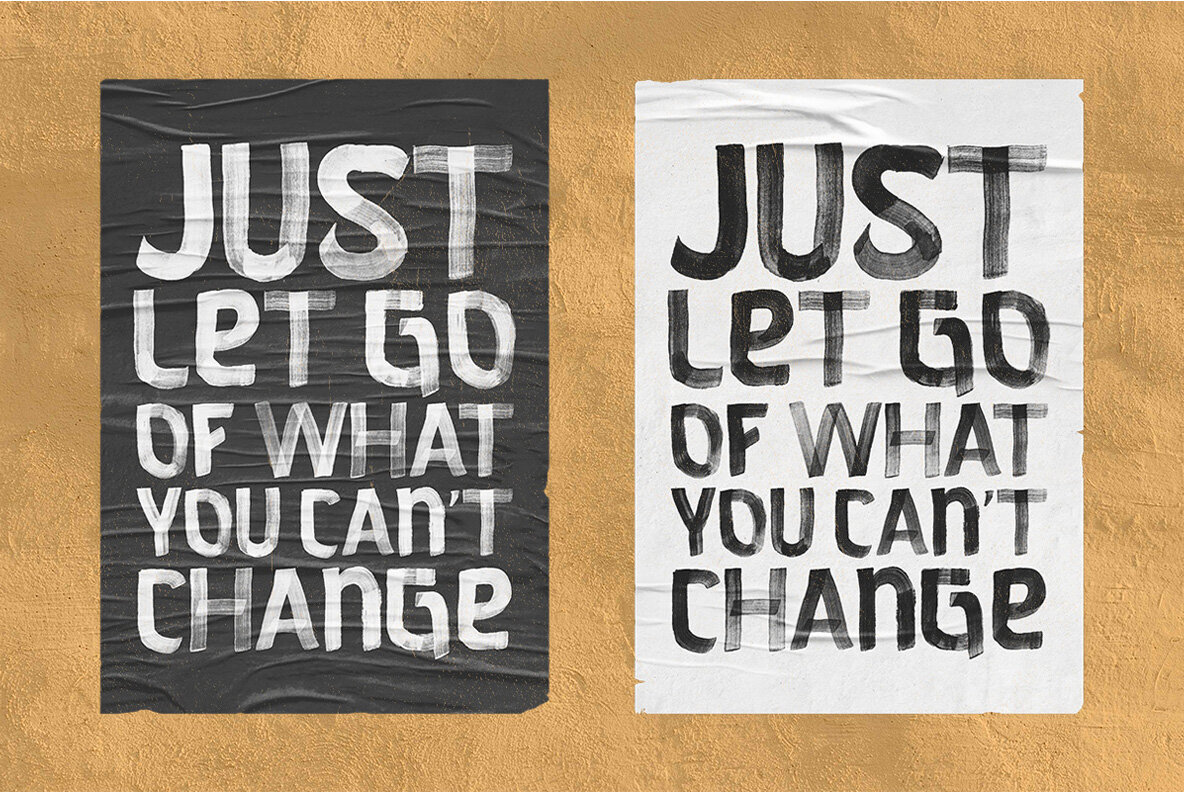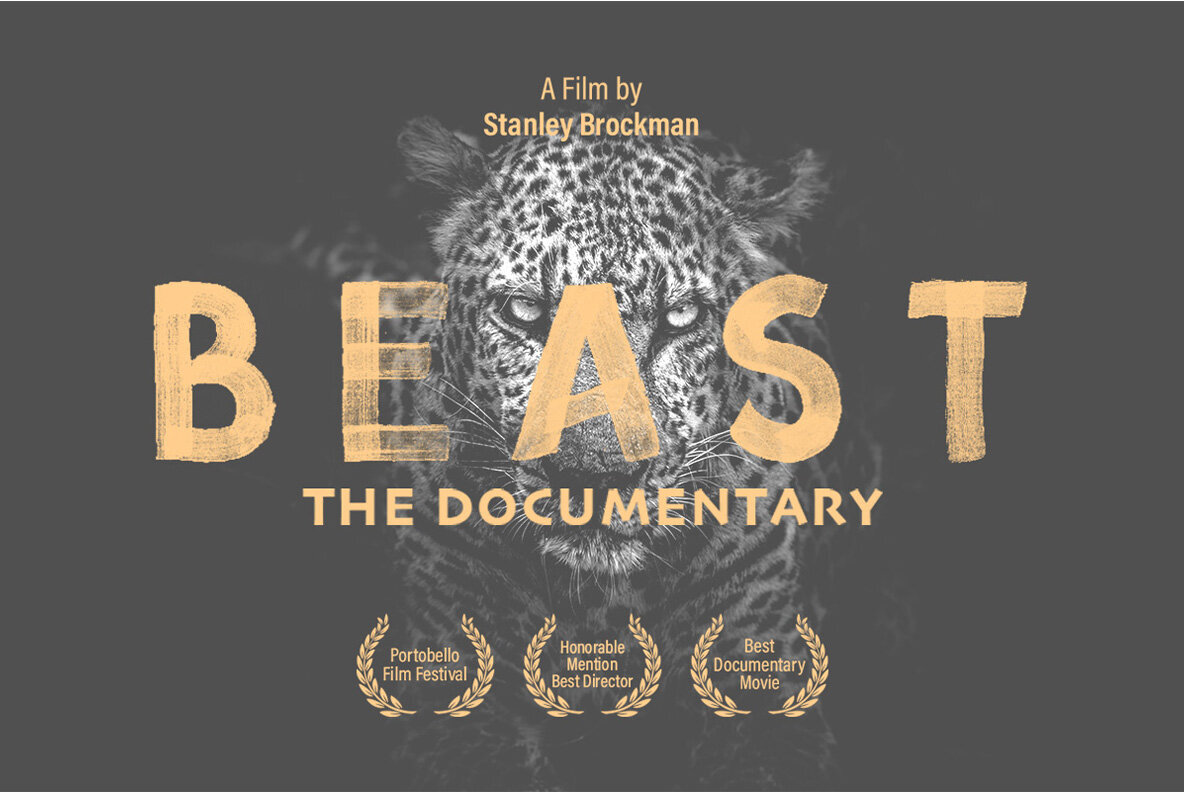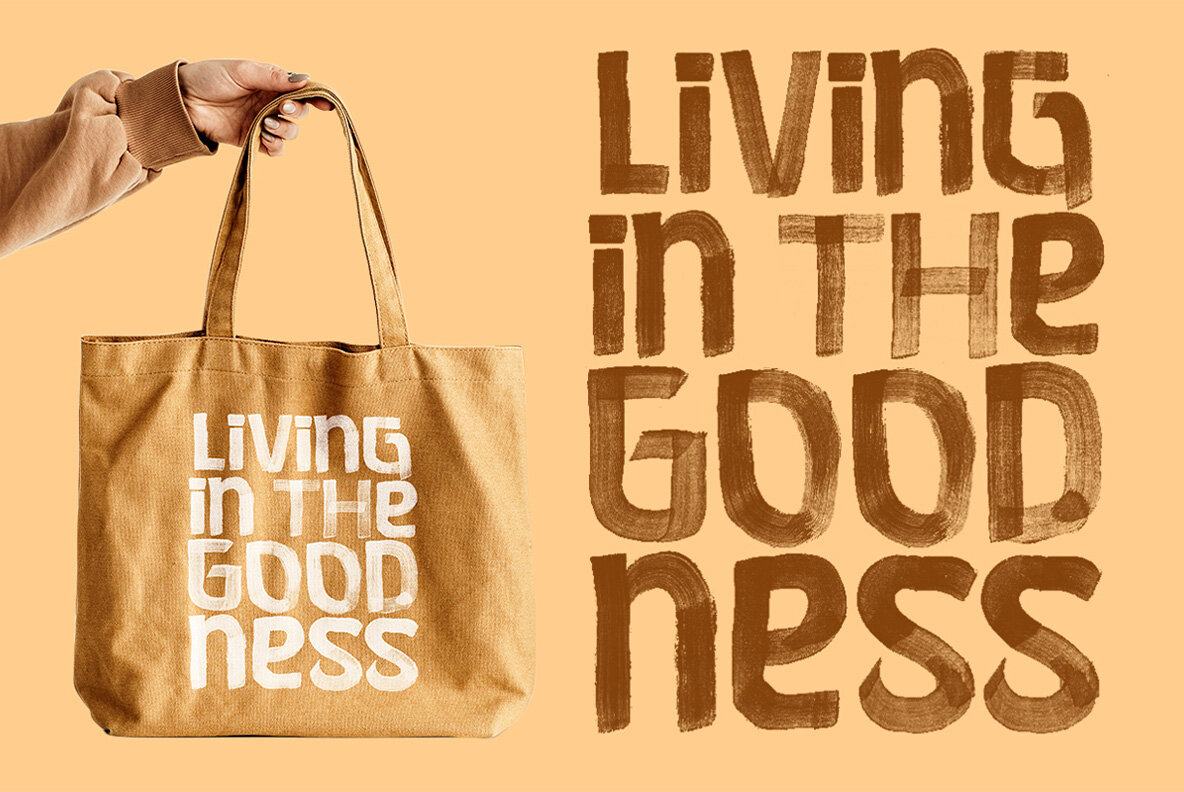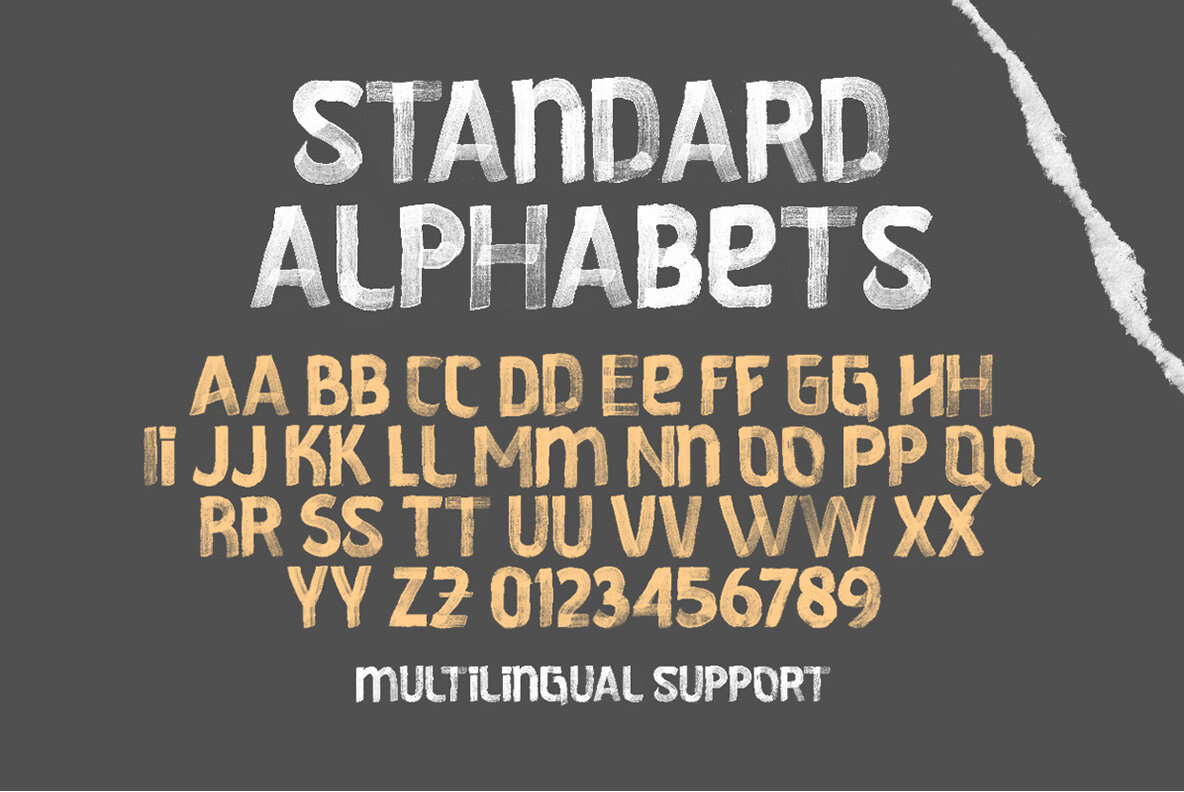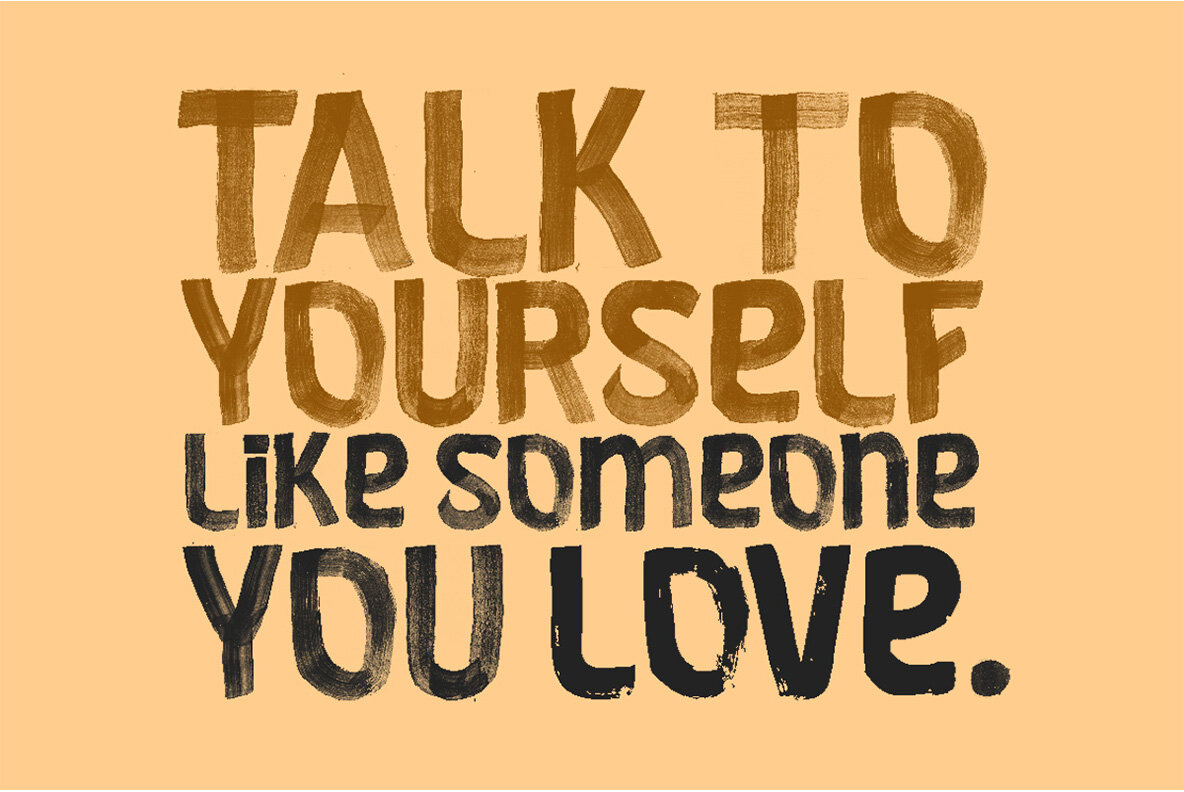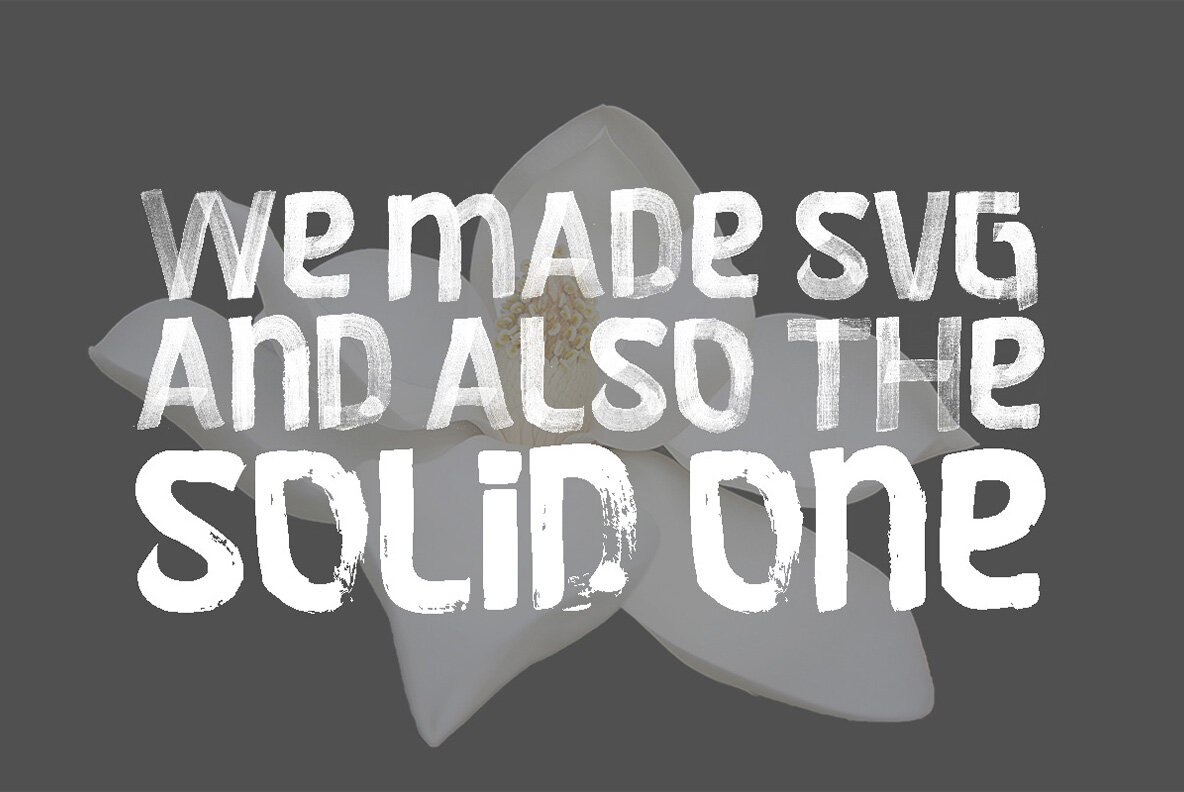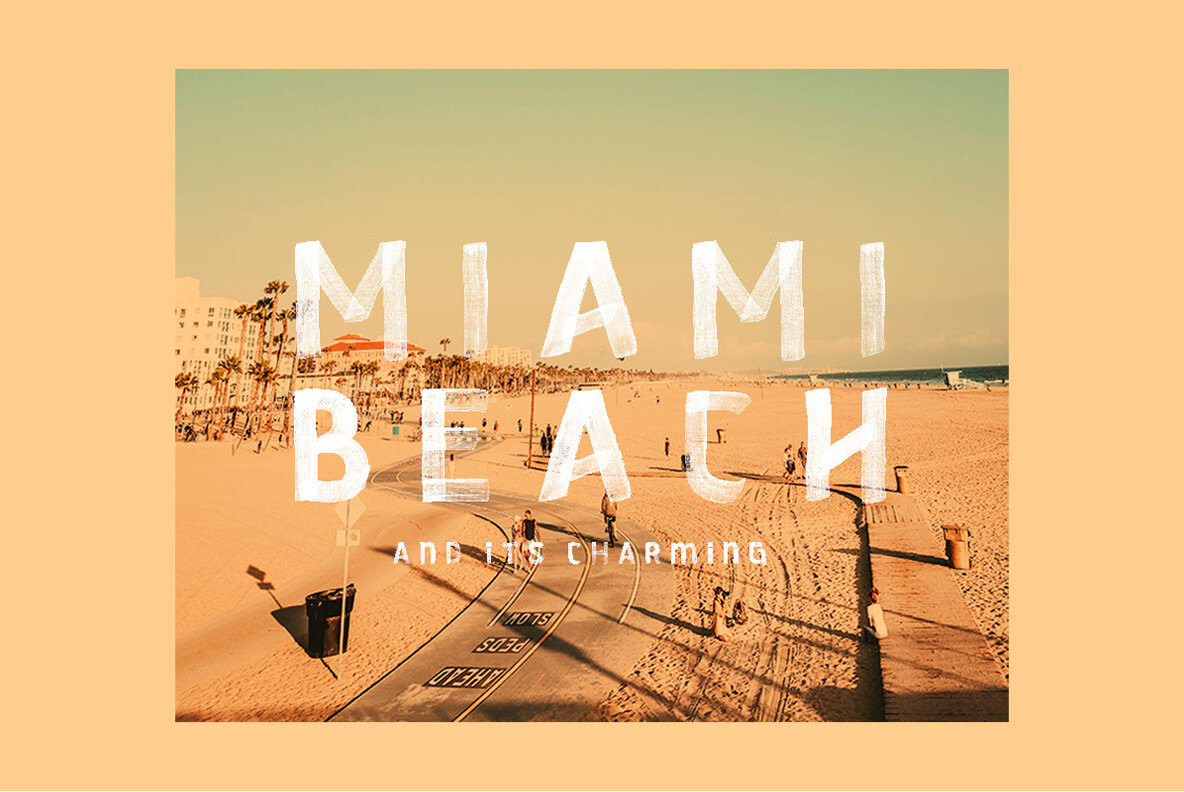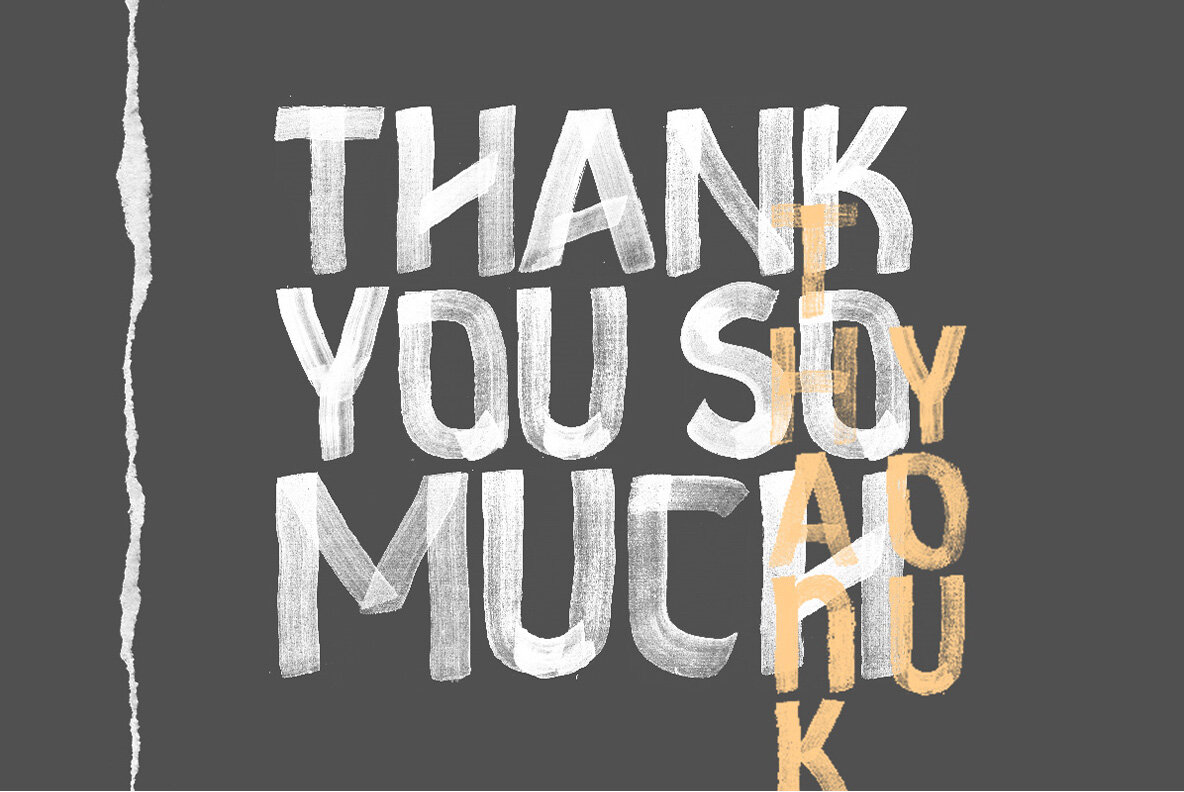
Self Love - SVG Font
Self-Love is a textured SVG brush typeface. Available in two types, solid version and a transparent style for when you need to add some depth onto your design work! This font can be used as an attention grabbing headline or formal forms such as invitations, labels, etc.
- Solid version and SVG version
- Numbers and Punctuation